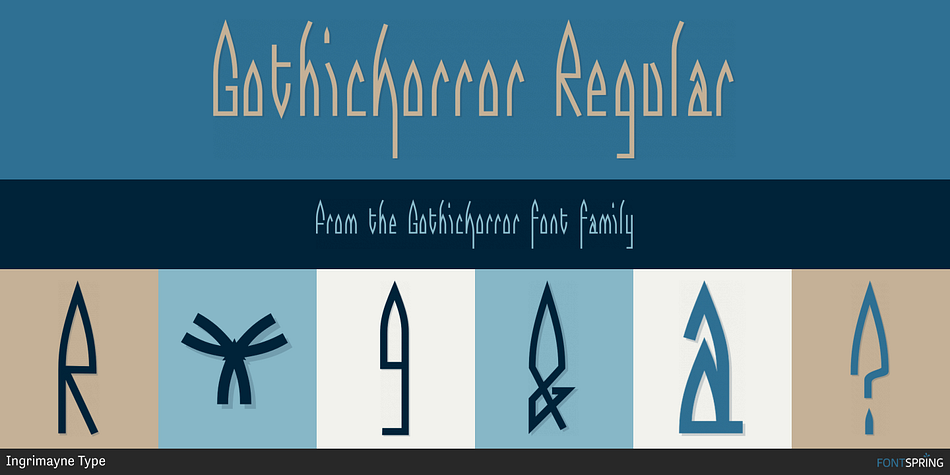
GothicHorror Regular
Designed by Robert Schenk, GothicHorror is a display sans font published by Ingrimayne Type.
What would a typeface look like that used a gothic arch, a feature of medieval architecture, as its motif? I decided to find out and the result was not beautiful but frightful. GothicHorror uses a pointed arch almost everywhere that it can be used and is unlike anything else. It is ugly, but for some uses that ugliness is a virtue.